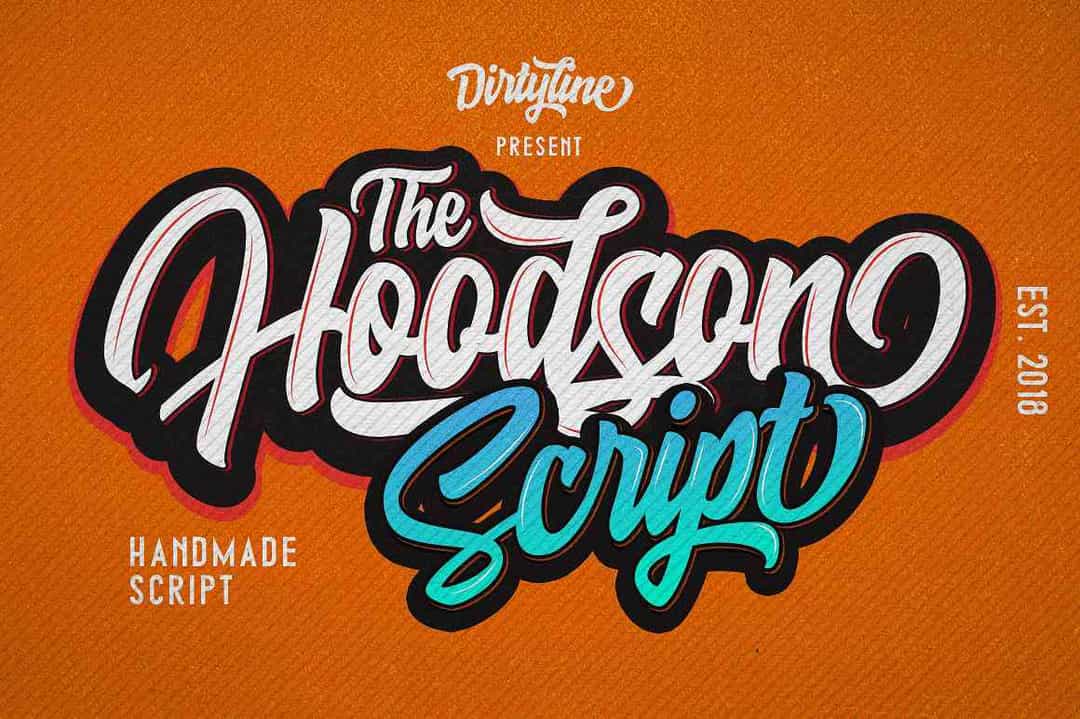
Hoodson Script is designed based on Retro style with the integration of Hand Lettering style. I have designed with personality touch every single curve. Maybe this can help inspire you from what you do. However, it has a very good bouncy baseline It is also perfectly combined with a complimentary marker font and has a set of very useful bonus swash. Perfect for logos, quotes, product labels, headers, posters, t-shirts, social media, and greetings cards.